Stem
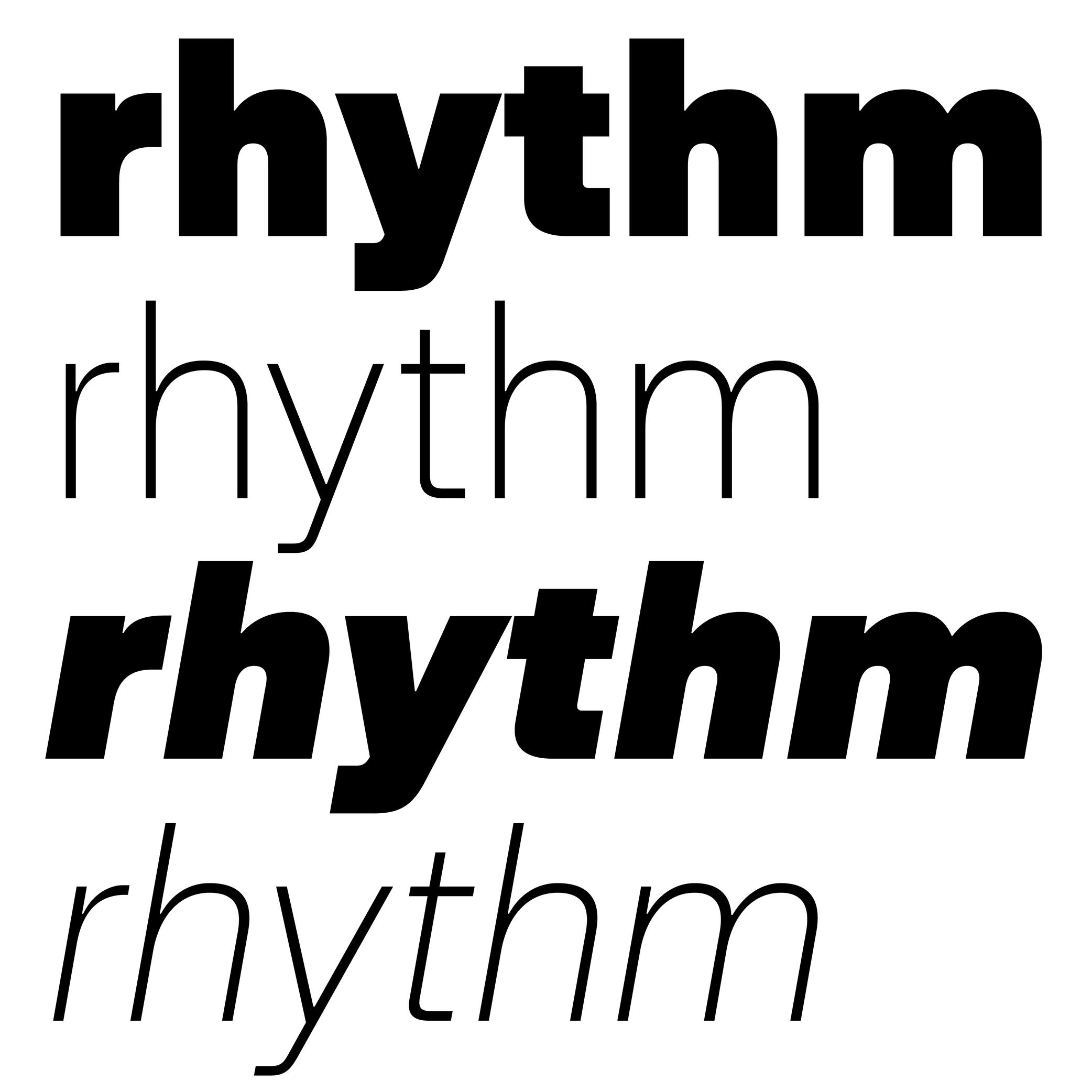
Many terms are borrowed from architecture or human and animal anatomy to designate and describe parts of letters and other characters. We even speak of type design anatomy.
In many writing systems, a glyph’s stem refers to its vertical bar(s) or stroke(s).